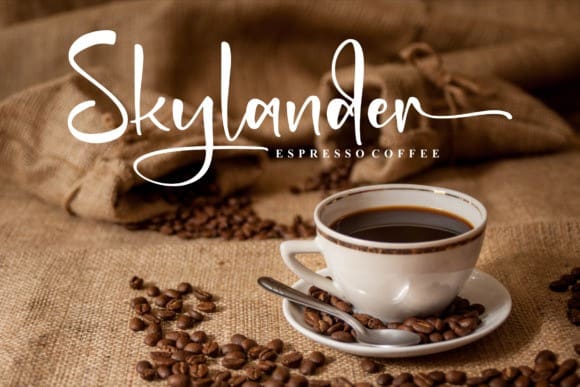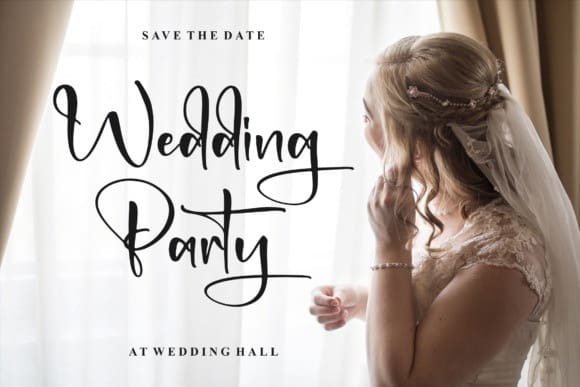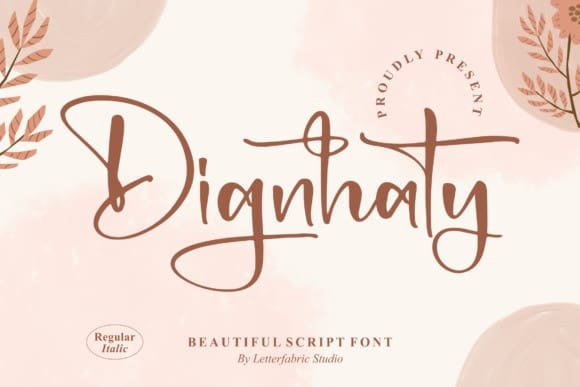
Dignhaty Script Font
Dignhaty Script Font, is an elegant script font with a contemporary atmosphere and impeccable form, inspired by timeless classic calligraphy. This font is PUA encoded which means you can access all of the glyphs and swashes with ease!